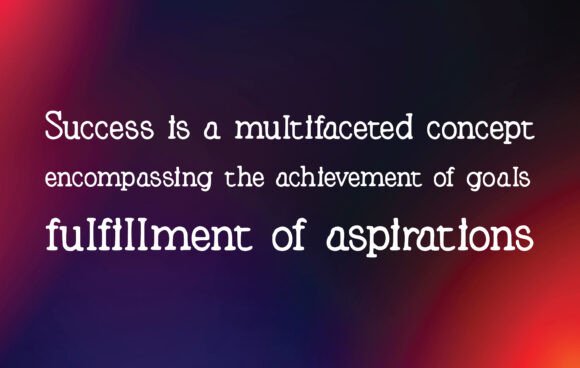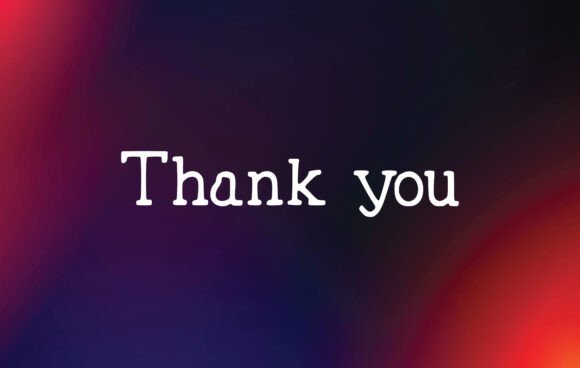
Introducing Acen Font: Elevate Your Creative Projects with Style and Legibility
Are you on the hunt for a font that can take your creative ideas to the next level? Look no further than Acen Font, a versatile and stylish typeface designed to make your designs shine. With its perfect blend of legibility and aesthetics, Acen Font is the ideal choice for a wide range of projects, from magazine headlines and t-shirts to social media graphics, branding, and wedding invitations.
A Font Designed for Creatives
Acen Font is crafted with the creative professional in mind. Its unique design ensures that it stands out from the crowd, making it perfect for projects that require a touch of personality and flair. Whether you’re working on a magazine layout, a t-shirt design, or a social media post, Acen Font is sure to make your content look great and grab the attention of your audience.
Legible and Versatile
One of the key features of Acen Font is its exceptional legibility. This makes it an excellent choice for both title and body text, allowing you to use it consistently across your design without sacrificing readability. The font’s versatility is another one of its standout qualities, making it suitable for a wide range of applications, including:
- Magazine headlines and articles
- T-shirts and apparel
- Wedding invitations and cards
Why Choose Acen Font?
There are countless fonts available to designers and crafters, but Acen Font stands out for several reasons:
- Unique Style: Acen Font boasts a unique and stylish design that will set your projects apart from the rest.
- High Legibility: Its clear and readable design makes it perfect for both digital and print applications.
- Versatility: Use it for titles, body text, or any other design element where you want to make a statement.
- Ease of Use: Acen Font is easy to integrate into your design workflow, making it a convenient choice for projects of all sizes.
Tips for Using Acen Font
To get the most out of Acen Font, consider the following tips:
- Experiment with Sizes: Acen Font looks great in various sizes, from large headlines to smaller body text.
- Play with Colors: The font’s design lends itself well to a variety of colors and gradients, so don’t be afraid to get creative.
- Mix and Match: Try pairing Acen Font with other fonts for a unique and compelling design.
- Consider Your Audience: Choose a style and size that resonates with your target audience and enhances your message.
Acen Font is more than just a typeface – it’s a tool for creativity and self-expression. Its unique design, legibility, and versatility make it an invaluable asset for designers and crafters looking to elevate their projects. Whether you’re working on a professional design or a personal craft project, Acen Font has the potential to take your ideas to the highest level. So why wait? Explore the possibilities with Acen Font today and discover a world of creative potential at your fingertips.